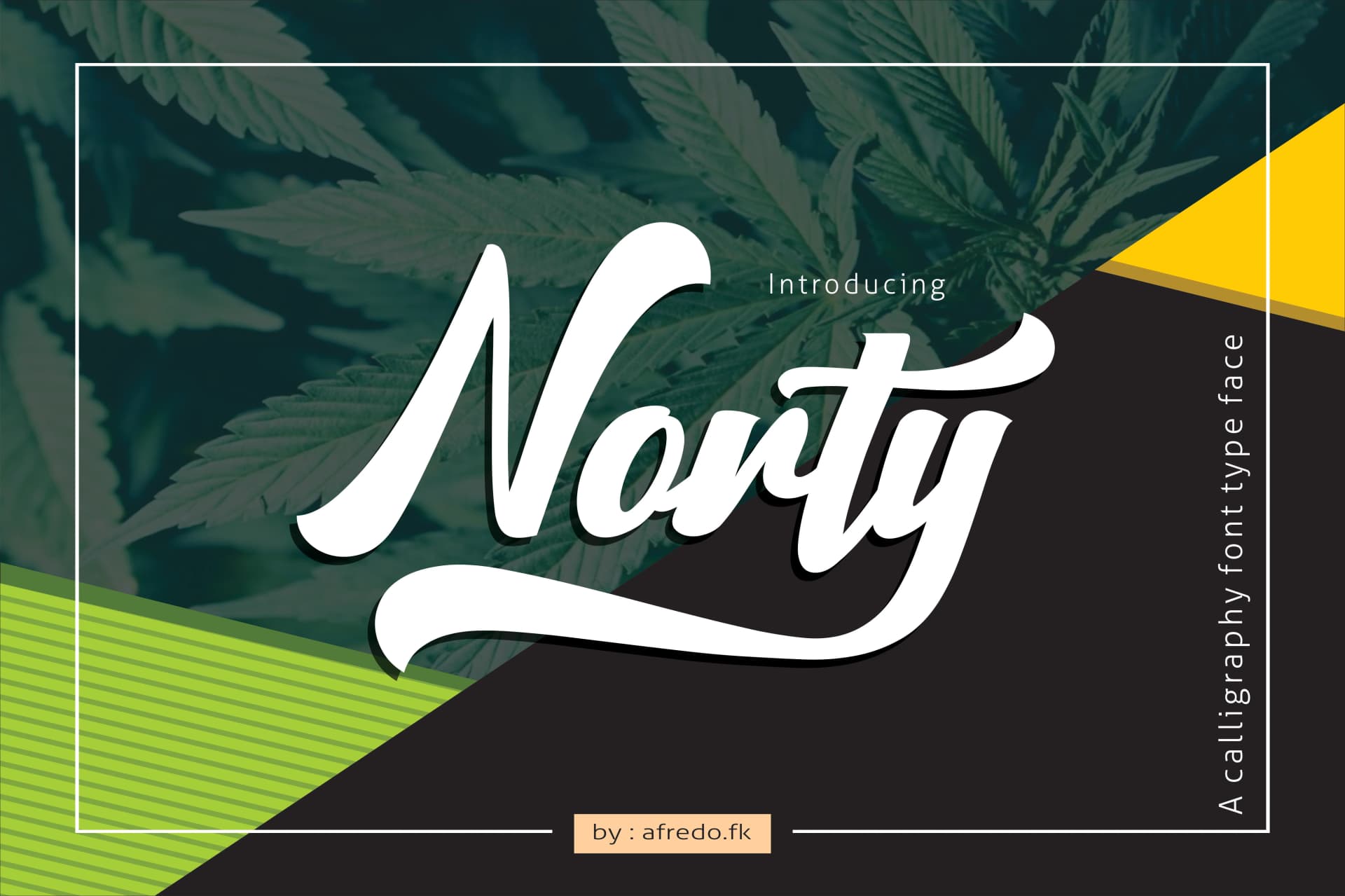
Norty Font by afredo.fk is a painterly handwritten script that brings organic warmth to both contemporary and retro-inspired work. The font's flowing letterforms and expressive character make it an ideal choice for projects that benefit from a personal, crafted touch. This versatile typeface excels in wedding invitation design, where its fluid strokes add romantic elegance to ceremony details. Greeting card design also showcases the font's approachability, making it suitable for heartfelt messages and casual celebrations. The hand-lettered quality works equally well for custom product packaging and artisan branding, particularly in niches like handmade cosmetics or small-batch confectionery. Its legibility at display sizes means you can use Norty for signage, title text, and poster work without sacrificing readability. Whether you're building a cohesive visual identity for a boutique or freelance business, creating promotional materials with personality, or designing print collateral that stands out, Norty delivers the handcrafted aesthetic that sets your work apart from templates and sterile typography. The font's balance between sophistication and friendliness makes it work across contexts, from vintage scrapbooking layouts to modern brand packaging. Discover Norty Font on Creative Fabrica and bring distinctive character to your next design project.
Norty Font is a script font that shines as a display or heading face. Pair it with a clean sans-serif or serif font for body text β the contrast creates a clear hierarchy while the two styles stay balanced and easy to read.
Norty Font